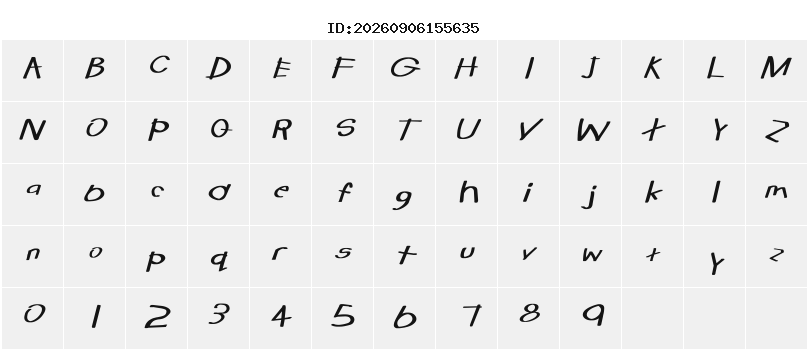
• Font Name: Tabatha Wd bold italic
• Full Font Name: Tabatha Wd Bold Italic
About Tabatha Wd bold italic.ttf
Tabatha Wd bold italic.ttf is a modern, elegant sans-serif font designed for ultimate readability and visual harmony. Perfect for branding, headlines, web design, and print materials.